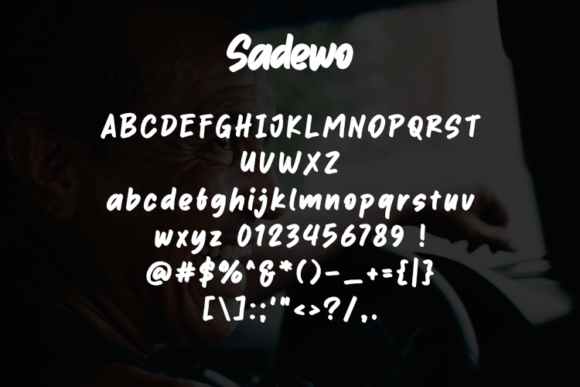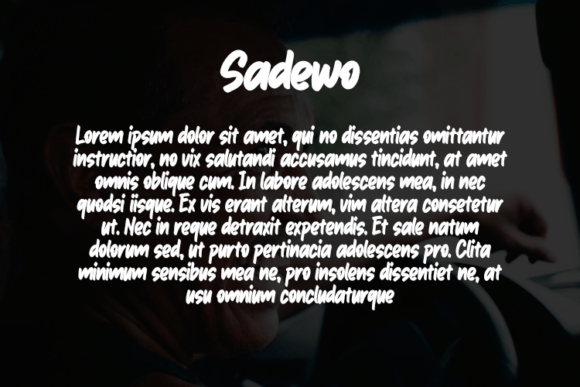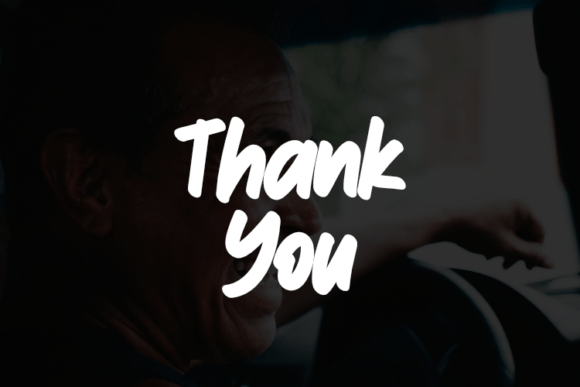
Introduction to Sadewo Font
Embrace the unique charm of Sadewo, an eclectic font tailored for all your design aspirations, be it clothing, t-shirts, or a myriad of other products.
Key Features of Sadewo Font
Why Choose Sadewo Font?
Sadewo Font offers exceptional quality and versatility, making it a valuable addition to your design toolkit. Whether you’re creating for personal projects or commercial use, Sadewo Font delivers professional results.